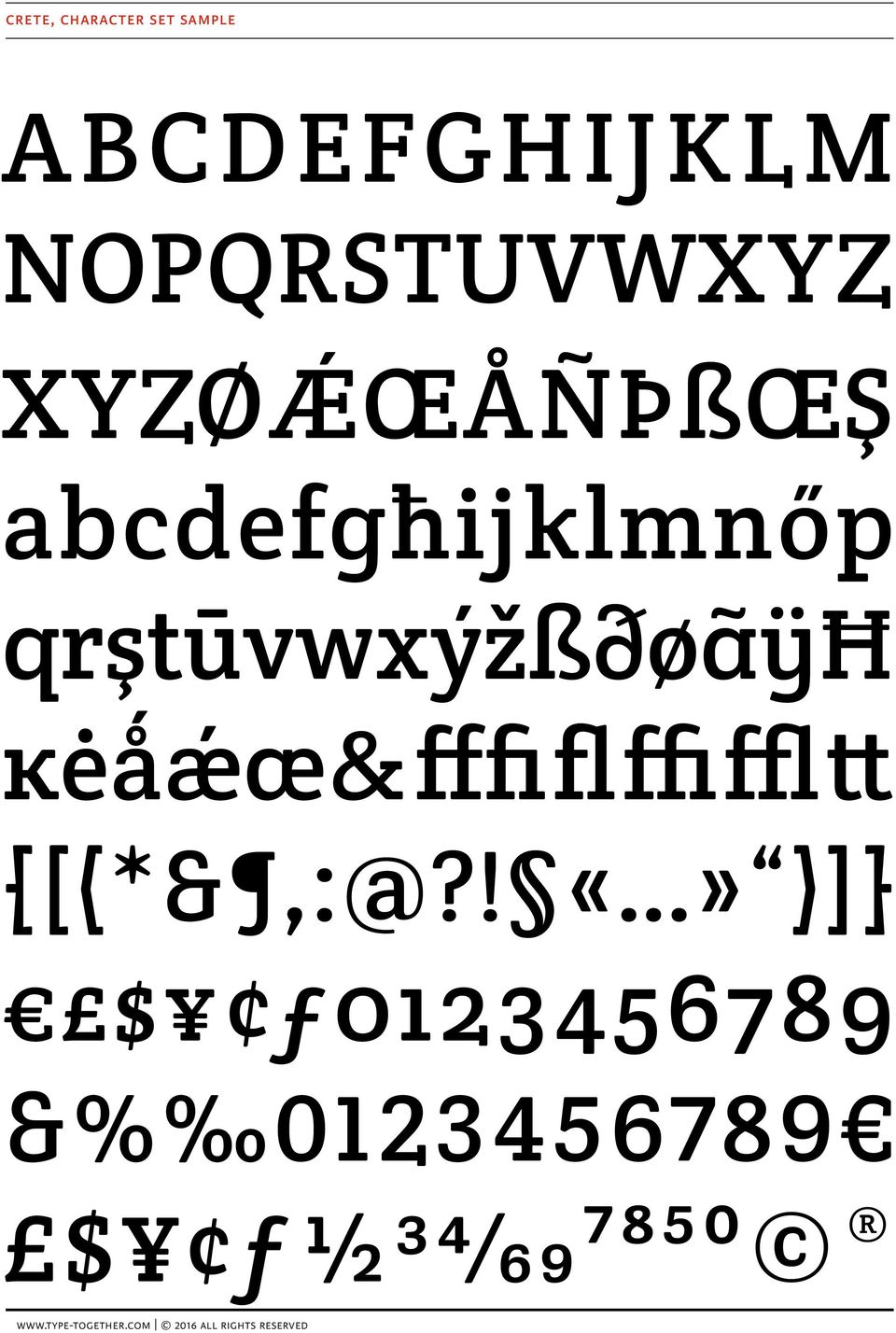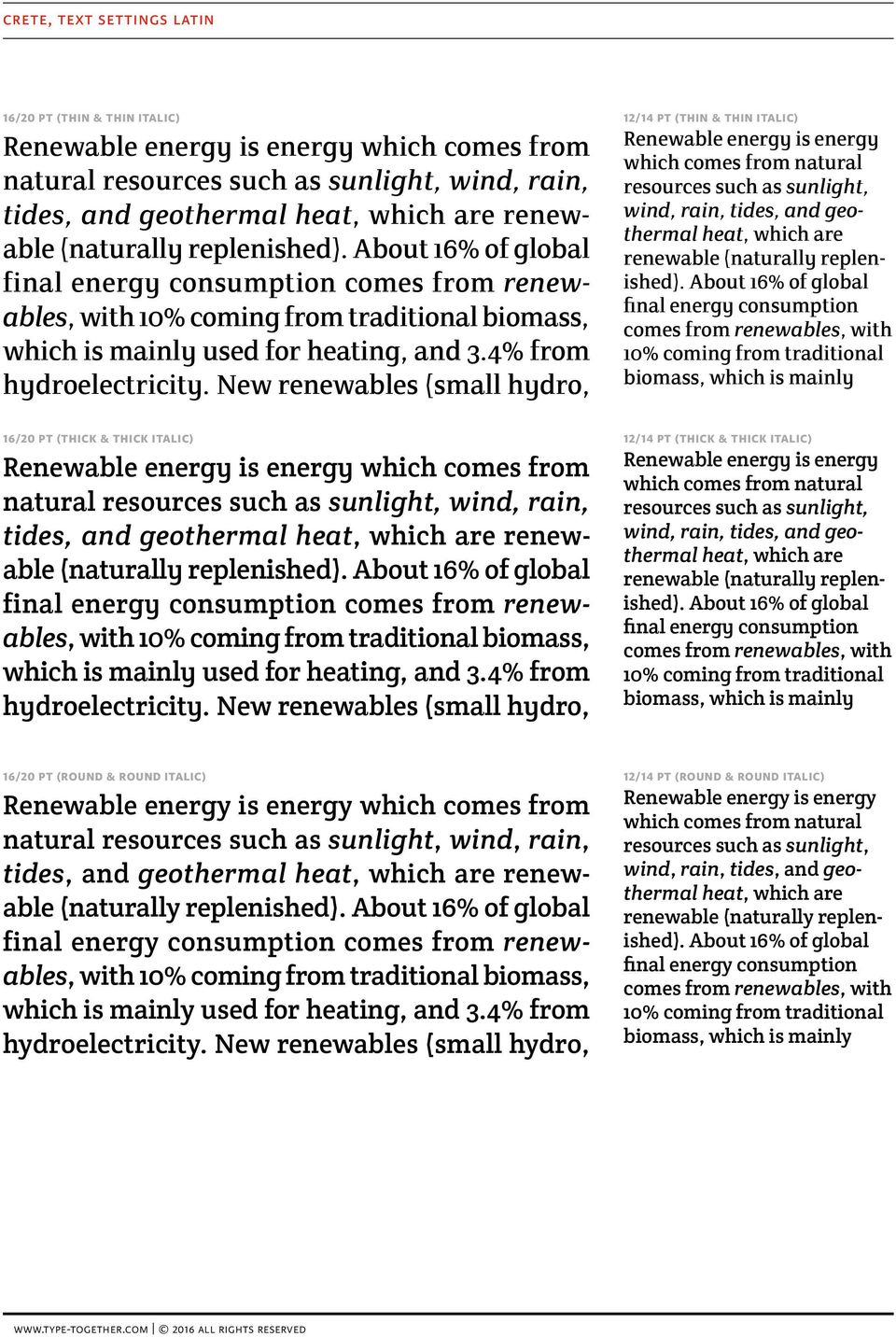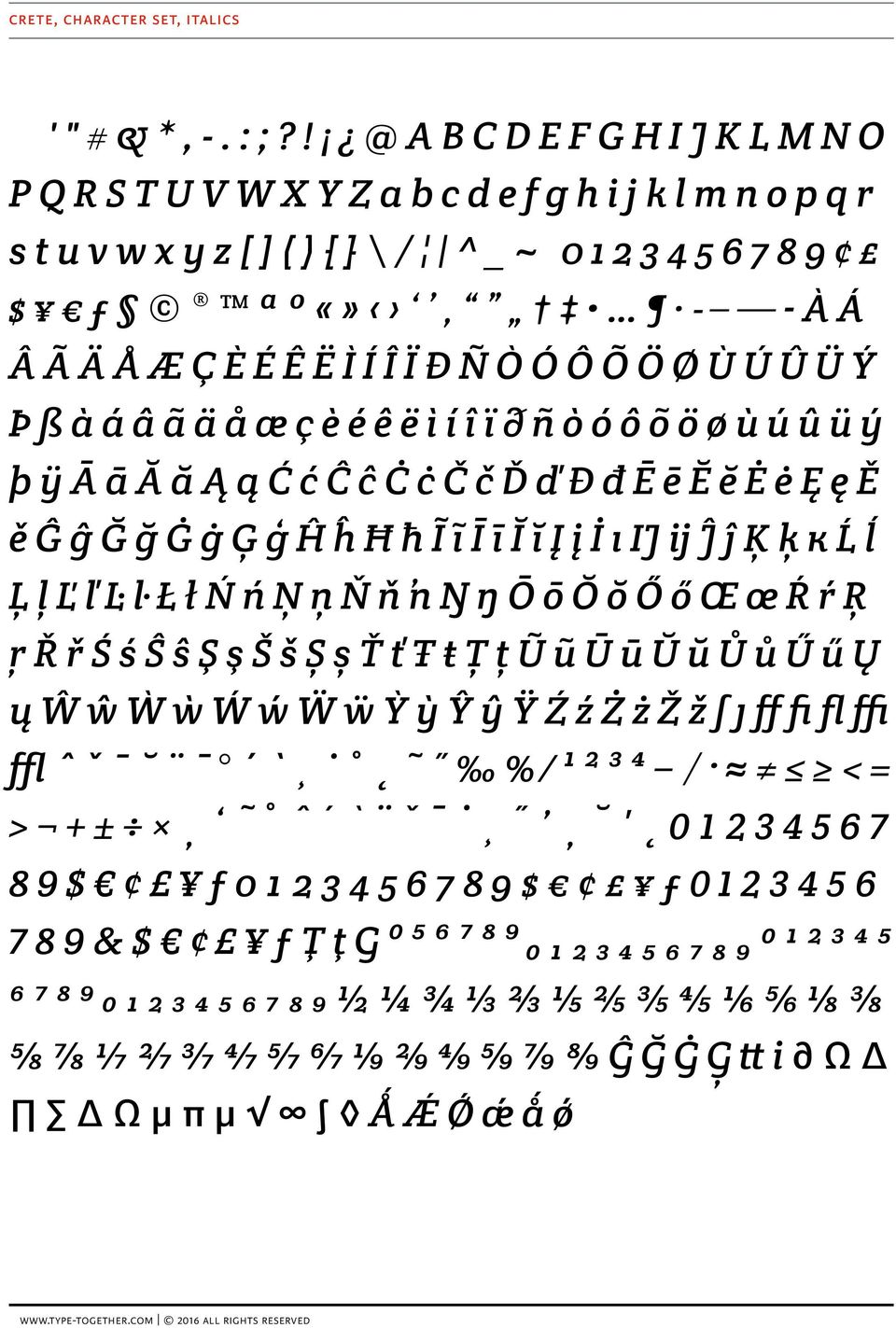
Crete. A surprising and unconventional slab serif, great for headlines or short texts, by TypeTogether. about the typeface
1 Crete A surprising and unconventional slab serif, great for headlines or short texts, by TypeTogether about the typeface Originally inspired by wall lettering in a small Grecian chapel, the Crete typeface by Veronika Burian was adjusted considerably to work in text. It is perfect for display use where an unconventional and delightful impression is desired. Due to a sense of movement throughout each glyph, Crete deftly retains the reader s interest in a text environment. The name of each style (Thick, Thin, and Round) refers to the change in the serifs themselves. So instead of increasing vertical stem widths from one weight to the next, as is common, the unusual serifs and terminals carry the tone, adding to the graceful appearance in the Thin and providing a more robust feel in the Thick style. Both are metrically interchangeable, so text will not reflow when mixed. The accompanying italics have several different lettershapes and therefore have, in some cases, their own widths, yet they always sit comfortably next to the uprights. Crete Round is more independent from the two original styles, with changed terminals and serifs to create two new fonts that deliver a more contemporary and functional appearance. Furthermore, the new styles proved to be surprisingly efficient for web use and so are available under the SIL Open Source License at Google Webfonts. The limited number of weights serves to underline Crete s primary purpose for headings, callouts, and short texts. When a memorable slab serif is needed, Crete s unconventional ways fit the bill. The complete Crete family comes in six styles, speaks multiple languages, and, along with our entire catalogue, has been optimised for today s varied screen uses. awards First prize for display typeface in the 2008 Granshan Type Design Competition Selected as branding for Letter.2, the second type design competition of the Association Typographique Internationale (ATypI), 2011 styles & scripts Crete Thin Italic Crete Thick Italic Crete Round Italic
2 crete, character set sample ABCDEFGHIJKLM NOPQRSTUVWXYZ XYZØǼŒÅÑÞßŒŞ abcdefgħijklmnőp qrştūvwxýžßðøäÿħ ĸėǻǽæ& fffi fl ffi ffl tt )]} $ ƒ &% $ ƒ½34/697850
3 crete, poster specimen Pražáky To najlepsze rozwiązanie, uważa prof. Wiesława Limont Happily married The unusual serifs and terminals add to the graceful experimental ideas Eyes on Lettering artist Mrs. Poon, 6940 Laurel Valley Drive, in Boulder Colorado Durch THIN & THICK
4 crete, text settings latin 18/22 pt (thick & thick italic) Renewable energy is energy which comes from natural resources such as sunlight, wind, rain, tides, and geothermal heat, which are renewable (naturally replenished). About 16% of global final energy consumption comes from renewables, with 10% coming from traditional biomass, which is mainly used for heating, and 3.4% from hydroelectricity. New renewables (small hydro, mod ern biomass, wind, solar, geothermal, and biofuels) accounted for another 2.8% and are growing rapidly. 18/22 pt (thin & thin italic) Renewable energy is energy which comes from natural resources such as sunlight, wind, rain, tides, and geothermal heat, which are renewable (naturally replenished). About 16% of global final energy consumption comes from renewables, with 10% coming from traditional biomass, which is mainly used for heating, and 3.4% from hydroelectricity. New renewables (small hydro, modern biomass, wind, solar, geothermal, and biofuels) accounted for 18/22 pt (round & round italic) Renewable energy is energy which comes from natural resources such as sunlight, wind, rain, tides, and geothermal heat, which are renewable (naturally replenished). About 16% of global final energy consumption comes from renewables, with 10% coming from traditional biomass, which is mainly used for heating, and 3.4% from hydroelectricity. New renewables (small hydro, modern biomass, wind, solar, geothermal, and biofuels) accounted for Source:
5 crete, text settings latin 16/20 pt (thin & thin italic) Renewable energy is energy which comes from natural resources such as sunlight, wind, rain, tides, and geothermal heat, which are renewable (naturally replenished). About 16% of global final energy consumption comes from renewables, with 10% coming from traditional biomass, which is mainly used for heating, and 3.4% from hydroelectricity. New renewables (small hydro, 16/20 pt (thick & thick italic) Renewable energy is energy which comes from natural resources such as sunlight, wind, rain, tides, and geothermal heat, which are renew able (naturally replenished). About 16% of global final energy consumption comes from renew ables, with 10% coming from traditional biomass, which is mainly used for heating, and 3.4% from hydroelectricity. New renewables (small hydro, 12/14 pt (thin & thin italic) Renewable energy is energy which comes from natural resources such as sunlight, wind, rain, tides, and geothermal heat, which are renewable (naturally replenished). About 16% of global final energy consumption comes from renewables, with 10% coming from traditional biomass, which is mainly 12/14 pt (thick & thick italic) Renewable energy is energy which comes from natural resources such as sunlight, wind, rain, tides, and geo thermal heat, which are renewable (naturally replen ished). About 16% of global final energy consumption comes from renewables, with 10% coming from traditional biomass, which is mainly 16/20 pt (round & round italic) Renewable energy is energy which comes from natural resources such as sunlight, wind, rain, tides, and geothermal heat, which are renewable (naturally replenished). About 16% of global final energy consumption comes from renewables, with 10% coming from traditional biomass, which is mainly used for heating, and 3.4% from hydroelectricity. New renewables (small hydro, 12/14 pt (round & round italic) Renewable energy is energy which comes from natural resources such as sunlight, wind, rain, tides, and geothermal heat, which are renewable (naturally replenished). About 16% of global final energy consumption comes from renewables, with 10% coming from traditional biomass, which is mainly
6 crete, text settings latin czech 8/10 pt (thin & thin italic) To nejalterantivnější, nejexperimentálnější a možná i nejodvážnější v českém profesionálním divadle se dnes odehrává především na jevištích divadel pro děti a mládež. Začaly to kdysi Buchty a loutky svými pohádkami pro zlobivé děti. Koncepcí divadla pro celou rodinu se o něco podobného pokoušeli Hana Burešová s Janem Bornou v Divadle v Dlouhé. Razantně do trendu odvážného, experimentálního tedy v zásadě alternativního divadla pro děti vstoupil ale až Jiří Adámek v pražském Divadle Minor svou inscenací Z knihy džunglí. Byla (a stále je) magickým hmatovým divadlem interpretovaným v netradičním prostoru, s přímým, živým kontaktem s herci a využíváním až burianovských voicebandů. Minor dnes oslovuje tvůrce právě z 10/12 pt (thin & thin italic) To nejalterantivnější, nejexperimentálnější a možná i nejodvážnější v českém profesionálním divadle se dnes odehrává především na jevištích divadel pro děti a mládež. Začaly to kdysi Buchty a loutky svými pohádkami pro zlobivé děti. Koncepcí divadla pro celou rodinu se o něco podobného pokoušeli Hana Burešová s Janem Bornou v Divadle v Dlouhé. Razantně do trendu odvážného, experimentálního tedy v zásadě alternativního divadla pro děti vstoupil ale až Jiří Adámek 12/14 pt (thin & thin italic) To nejalterantivnější, nejexperimentálnější a možná i nejodvážnější v českém profesionálním divadle se dnes odehrává především na jevištích divadel pro děti a mládež. Začaly to kdysi Buchty a loutky svými pohádkami pro zlobivé děti. Koncepcí divadla pro celou rodinu se o něco podobného pokoušeli Hana Burešová s Janem Bornou v Divadle v 8/10 pt (thick & thick italic) To nejalterantivnější, nejexperimentálnější a možná i nejodvážnější v českém profesionál ním divadle se dnes odehrává především na jevištích divadel pro děti a mládež. Začaly to kdysi Buchty a loutky svými pohádkami pro zlobivé děti. Koncepcí divadla pro celou rodinu se o něco podobného pokoušeli Hana Burešová s Janem Bornou v Divadle v Dlouhé. Razantně do trendu odvážného, experimentál ního tedy v zásadě alternativního divadla pro děti vstoupil ale až Jiří Adámek v praž ském Divadle Minor svou inscenací Z knihy džunglí. Byla (a stále je) magickým hmato vým divadlem interpretovaným v netradič ním prostoru, s přímým, živým kontaktem s herci a využíváním až burianovských voice bandů. Minor dnes oslovuje tvůrce právě z 10/12 pt (thick & thick italic) To nejalterantivnější, nejexperimen tálnější a možná i nejodvážnější v českém profesionálním divadle se dnes odehrává především na jevištích divadel pro děti a mládež. Začaly to kdysi Buchty a loutky svými pohádkami pro zlobivé děti. Koncepcí divadla pro celou rodinu se o něco podobného pokoušeli Hana Burešová s Janem Bornou v Divadle v Dlouhé. Razantně do trendu odváž ného, experimentálního tedy v zásadě alternativního divadla pro děti vstoupil ale až Jiří Adámek 12/14 pt (thick & thick italic) To nejalterantivnější, nejexpe rimentálnější a možná i nejod vážnější v českém profesionál ním divadle se dnes odehrává především na jevištích divadel pro děti a mládež. Začaly to kdysi Buchty a loutky svými pohádkami pro zlobivé děti. Koncepcí divadla pro celou rodinu se o něco podobného pokoušeli Hana Burešová s Janem Bornou v Divadle v 8/10 pt (round & round italic) To nejalterantivnější, nejexperimentálnější a možná i nejodvážnější v českém profesionálním divadle se dnes odehrává především na jevištích divadel pro děti a mládež. Začaly to kdysi Buchty a loutky svými pohádkami pro zlobivé děti. Koncepcí divadla pro celou rodinu se o něco podobného pokoušeli Hana Burešová s Janem Bornou v Divadle v Dlouhé. Razantně do trendu odvážného, experimentálního tedy v zásadě alternativního divadla pro děti vstoupil ale až Jiří Adámek v pražském Divadle Minor svou inscenací Z knihy džunglí. Byla (a stále je) magickým hmatovým divadlem interpretovaným v netradičním prostoru, s přímým, živým kontaktem s herci a využíváním až burianovských voicebandů. Minor dnes oslovuje tvůrce právě z tohoto divadelní- 10/12 pt (round & round italic) To nejalterantivnější, nejexperimentálnější a možná i nejodvážnější v českém profesionálním divadle se dnes odehrává především na jevištích divadel pro děti a mládež. Začaly to kdysi Buchty a loutky svými pohádkami pro zlobivé děti. Koncepcí divadla pro celou rodinu se o něco podobného pokoušeli Hana Burešová s Janem Bornou v Divadle v Dlouhé. Razantně do trendu odvážného, experimentálního tedy v zásadě alternativního divadla pro děti vstoupil ale až Jiří Adámek v 12/14 pt (round & round italic) To nejalterantivnější, nejexperimentálnější a možná i nejodvážnější v českém profesionálním divadle se dnes odehrává především na jevištích divadel pro děti a mládež. Začaly to kdysi Buchty a loutky svými pohádkami pro zlobivé děti. Koncepcí divadla pro celou rodinu se o něco podobného pokoušeli Hana Burešová s Janem Bornou v Divadle v Source:
7 crete, opentype features all caps para texto? PARA TEXTO? 1708 a b 1708 A B ligatures cassette, raffle, affiliate proportional figures $ ƒ $ ƒ tabular figures $ ƒ $ ƒ numerator / denominator arbitrary fractions / / /2 3/4 1/46 5/7 26/98 1/2 3/4 1/46 5/7 26/98 superior / inferior H2O xb8 y3+5 aindex H2O xb8 y3+5 ªIndex stylistic set 1 stylistic set 2 aáàäâãåāăąæ GĜĞĠĢ & turkish/azeri/crimean/tatar findik findik romania/moldavian mulţumeşc mulţumeşc
8 crete, character set, uprights & &,.? A B C D E H I J K M N O P R T X Z a b c d e f g h i j k l m n o p r s t u v w x y z ( ) / $ ƒ ª à á â ã ä å æ é í ý ā ă ą č ě ř ş š ş ţ ţ ů ž fi ffi ffl tt a à á â ã ä å æ ā ă ą % / $ ƒ $ ƒ i
9 crete, character set, italics, B C E G I T Z a b c d e g h i j k l m n o p r s t u v w x y z á é í ý č ě Ĝ Ğ Ġ Ģ š G Ĝ Ğ Ġ Ģ